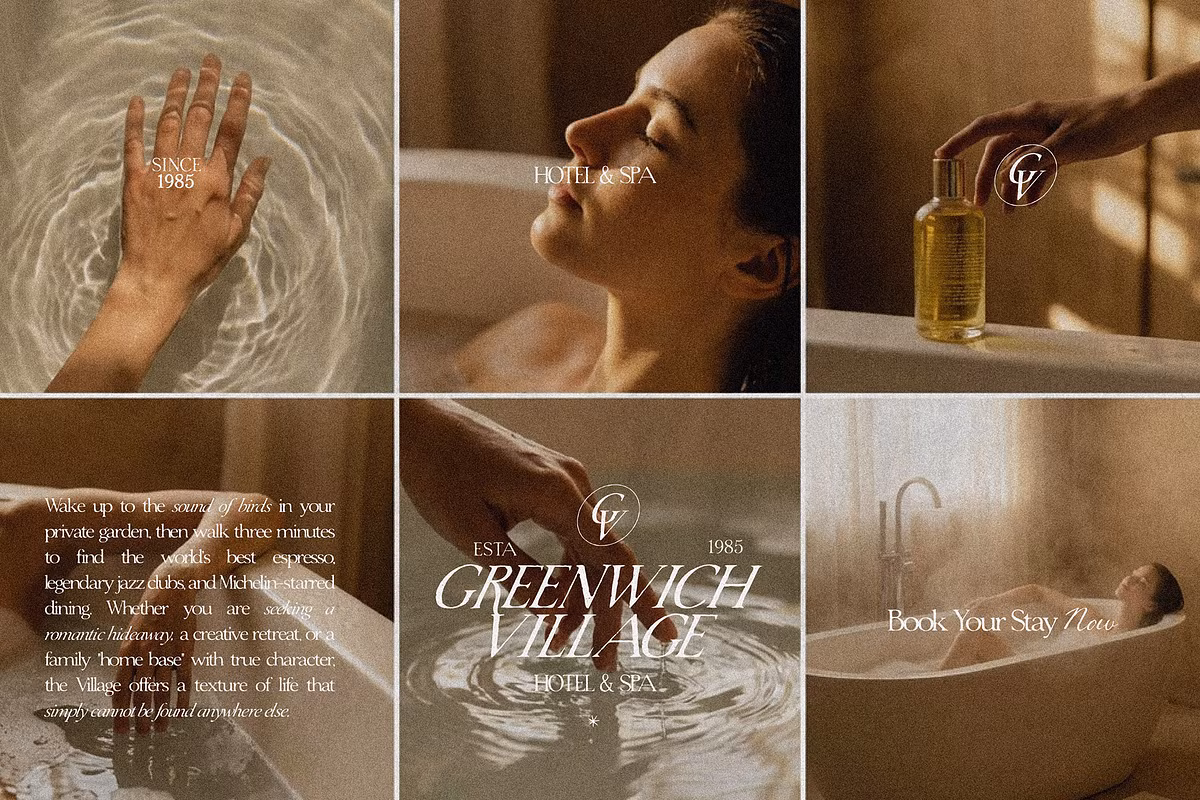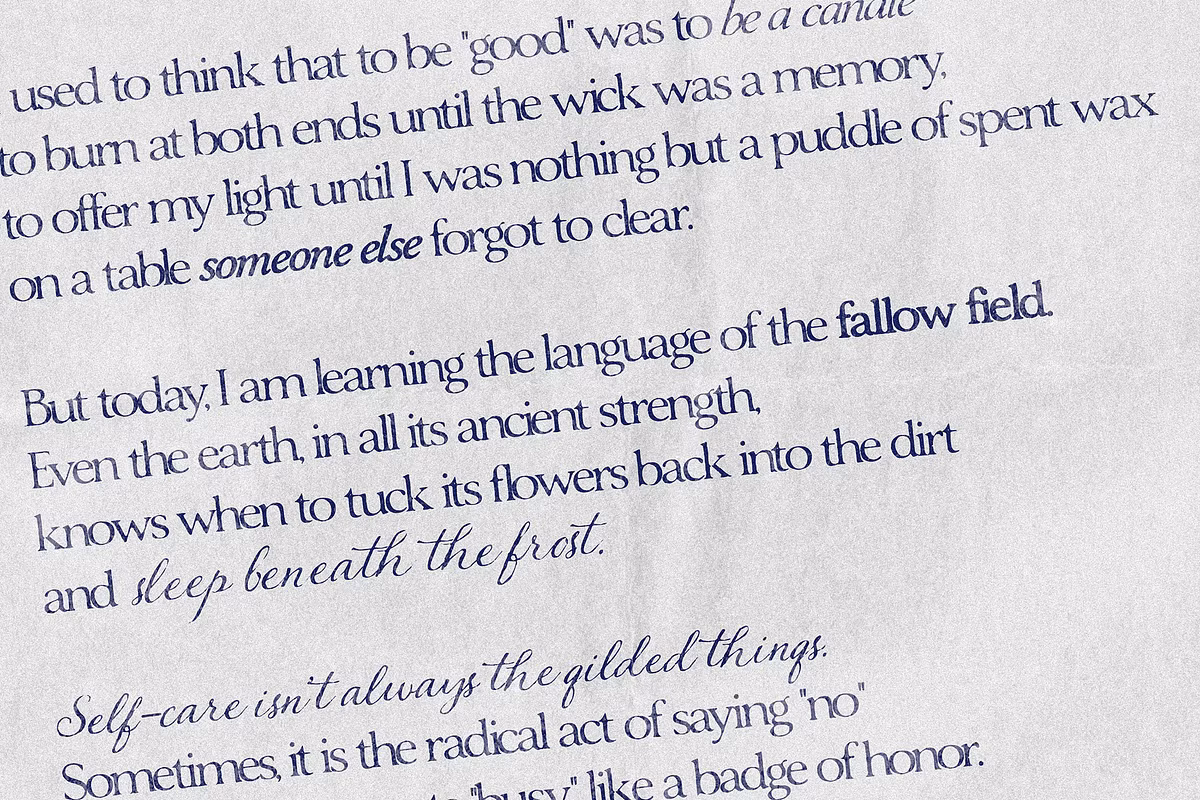
Cottage Dreams: Vintage Font Family for Cozy, Rustic Designs
The Cottage Dreams font is really pretty and has a classic look that’s perfect for people who like a more old-fashioned style. It’s great for anyone who loves the idea of slowing down and appreciating the simple things in life. The font has a nice, homemade feel to it, with little imperfections that make it look more real and authentic. This makes it a great choice for designs where you want to create a cozy and welcoming atmosphere. The people who made this font were inspired by the idea of living life at a slower pace and appreciating the beauty of imperfection. They wanted to create a font that would help people add a touch of warmth and personality to their designs, rather than trying to make everything look perfect and polished.
The Cottage Dreams font family has a really classic and charming look. It’s like the letters were stamped onto old paper, giving them a worn and vintage feel. This special texture makes your designs look like they’ve been around for a while, which is perfect for creating a cozy and nostalgic atmosphere. If you want your projects to feel warm and inviting, this font is a great choice. It’s all about capturing the essence of the past and making your designs feel more personal and authentic.
What makes Cottage Dreams unique is how it blends elegance with a warm feel. The family has six different fonts – Regular, Italic, Thin, Thin Italic, Script, and Script Thin – which means it can be used in lots of different design projects without losing its consistent look. This flexibility lets you combine different styles to create a beautiful and harmonious visual effect.
The Cottage Dreams font has lots of characters that can be used to write in many languages. This means you can get your message across to anyone, no matter where they’re from. All the characters work well together, so you can switch between different styles without it looking weird.
You’ve got a lot of options when it comes to fonts, and that’s really cool. Depending on what you’re working on, you can pick the one that fits best. Like, if you’re writing a big block of text, the Regular style is a great choice – it’s easy to read and looks nice. But if you want to add some flair to your headings or quotes, the Script style is a good way to go – it’s got a really romantic feel to it. And then there are the Thin styles, which are perfect for when you want something that’s a little more delicate and airy – they’re great for designs that are supposed to be minimalist.
The Cottage Dreams font family is really versatile, which means it can be used in lots of different ways. Here are some examples of where it would work really well:
- Business Branding: For businesses that want to show they care about details and are genuine, the Cottage Dreams font family is a great choice. It’s perfect for shops that make things by hand, like florists, bakeries, and jewelry makers, as well as companies that sell natural skincare products.
- Wedding Stationery: Create breathtaking invitations, “Save the Dates,” and place cards with an heirloom feel that captures the romance of the occasion. The Script styles are particularly well-suited for adding a personal touch to wedding stationery.
- Packaging: Cottage Dreams has a way of making packaging feel cozy and welcoming. It’s perfect for things like labels on candles, jars of honey, old-fashioned apothecary bottles, or even tea boxes.
- Social Media: Elevate your Instagram quotes, Pinterest graphics, and blog headers with the warm, cozy vibe that Cottage Dreams provides.
- Home Decor: You can use this font for lots of things around the house, like making signs with your Cricut, creating wall art, labeling things in the kitchen, and making your own DIY signs.
- Books and Magazines: Cottage Dreams is a great pick for making your magazine pages, book covers – especially for old-fashioned stories or poetry – and fashion books look really nice and classic.
Pairing fonts correctly can enhance the overall impact of your design. Here are some suggestions for effectively combining Cottage Dreams with other typefaces:
- Classic Pairing: To get a classic look, try pairing Cottage Dreams Regular with a simple font like Montserrat or Lato.
- Elegant Contrast: When using Cottage Dreams Script, consider pairing it with a simple serif font like Playfair Display.
- Soft and Delicate: To keep your design feeling soft and delicate, try pairing Cottage Dreams Thin with a lightweight sans-serif font, like Open Sans or Raleway.
The Cottage Dreams font is really nice and can be used in lots of different ways. It has a vintage look that people will like, with letters that look like they’re made from old paper or something. You can use it for lots of things, like making a brand look nice, or for wedding invitations, or even for packaging and magazines. It’s got a warm and cozy feel to it, like something from a long time ago. If you use this font, you can make things look really pretty and inviting. It’s perfect for designers who like old-fashioned things and want to make their work look special.